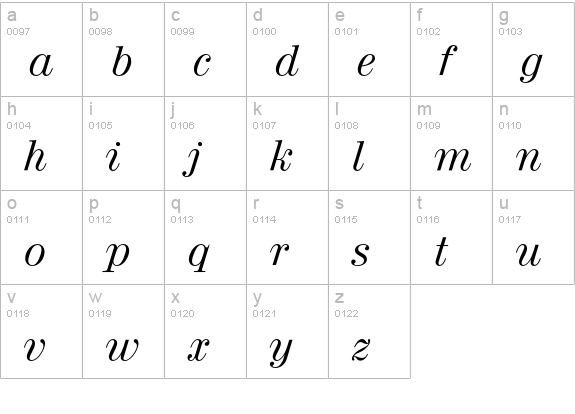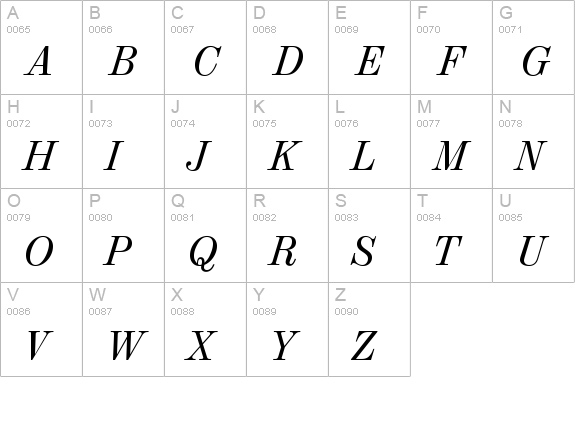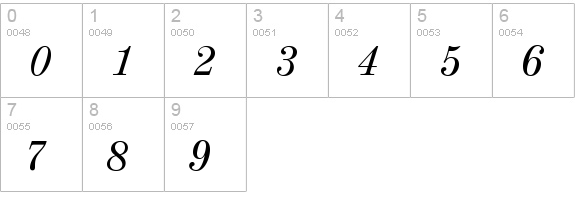
Valencia-RegularIta is a beautifully crafted font that exudes elegance and sophistication. Its delicate curves and stylish serifs give it a timeless appeal that is perfect for a variety of design projects. Whether you're creating invitations, branding materials, or editorial layouts, this font will add a touch of sophistication to your work. What sets Valencia-RegularIta apart is its unique italic style. The slanted letters add a sense of movement and dynamism, making it ideal for designs that require a touch of flair. The balanced letterforms ensure excellent legibility, making it suitable for both headlines and body text. This font is not only aesthetically pleasing but also versatile. It can be used for both formal and informal projects, allowing you to create a cohesive and polished design. Its versatility makes it a go-to choice for designers looking for a font that can adapt to different styles and moods. And the best part? Valencia-RegularIta is freely available to download at FontsMarket.com. This means that you can use this font in your personal and commercial projects without any restrictions. Its availability on FontsMarket.com ensures that you can easily access and incorporate this font into your design workflow. So, whether you're a professional designer or a casual enthusiast, Valencia-RegularIta is a font that will elevate your designs to new heights. Its timeless elegance, versatility, and the fact that it is freely available make it a must-have addition to your font library.